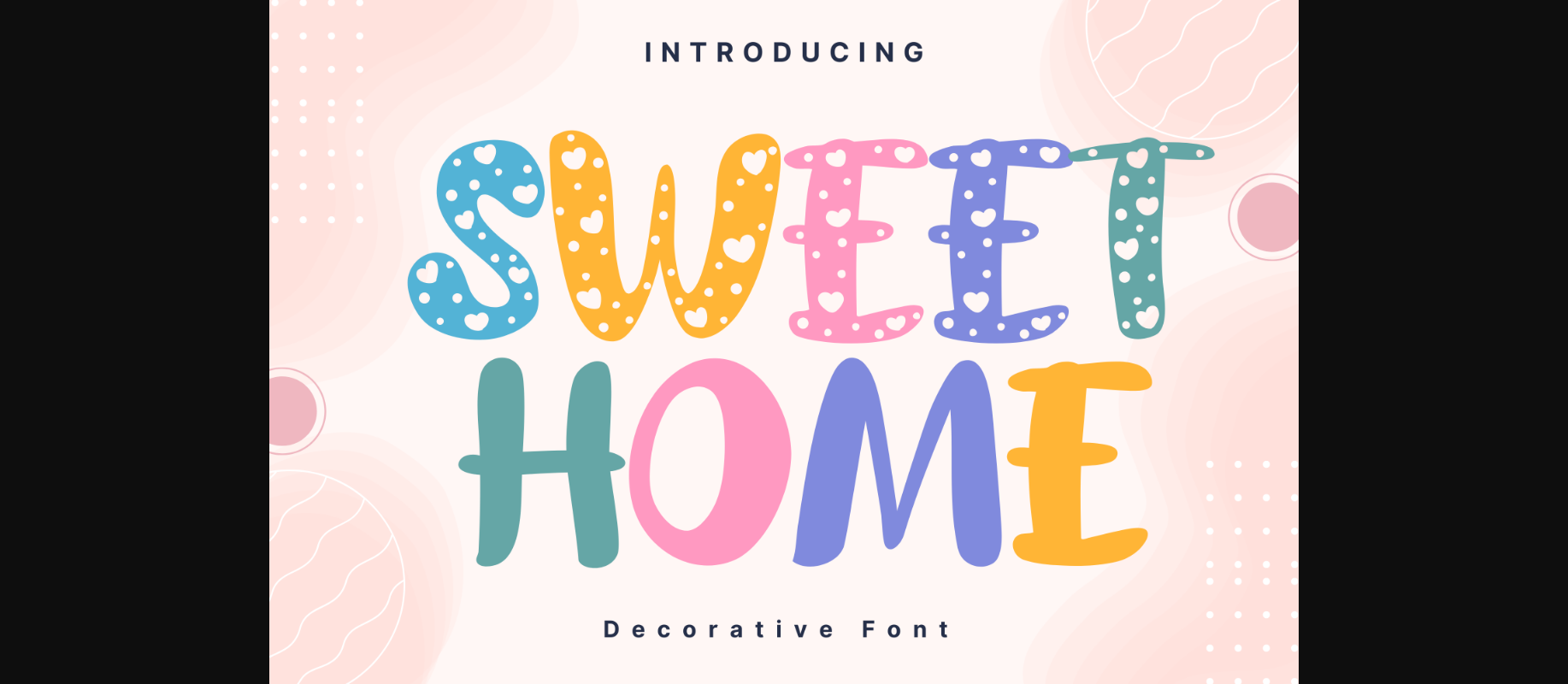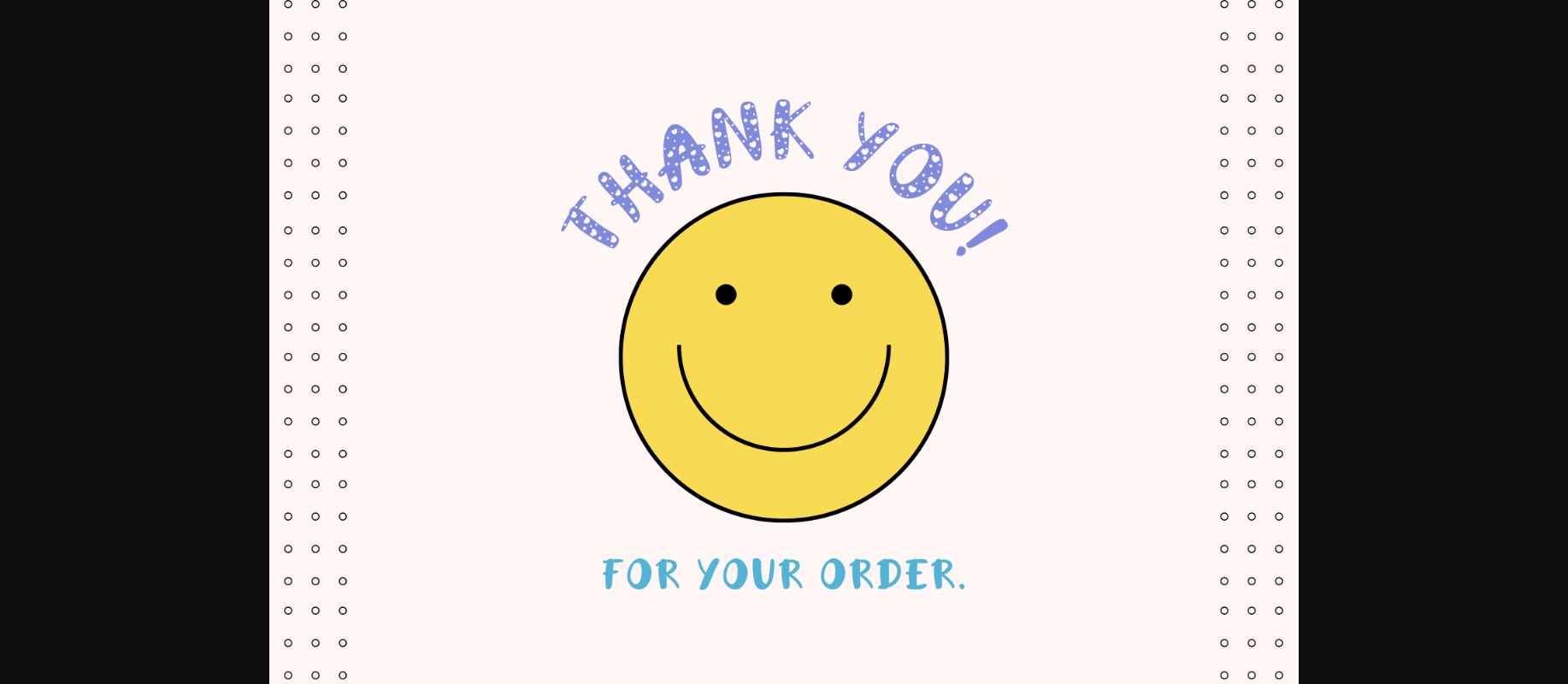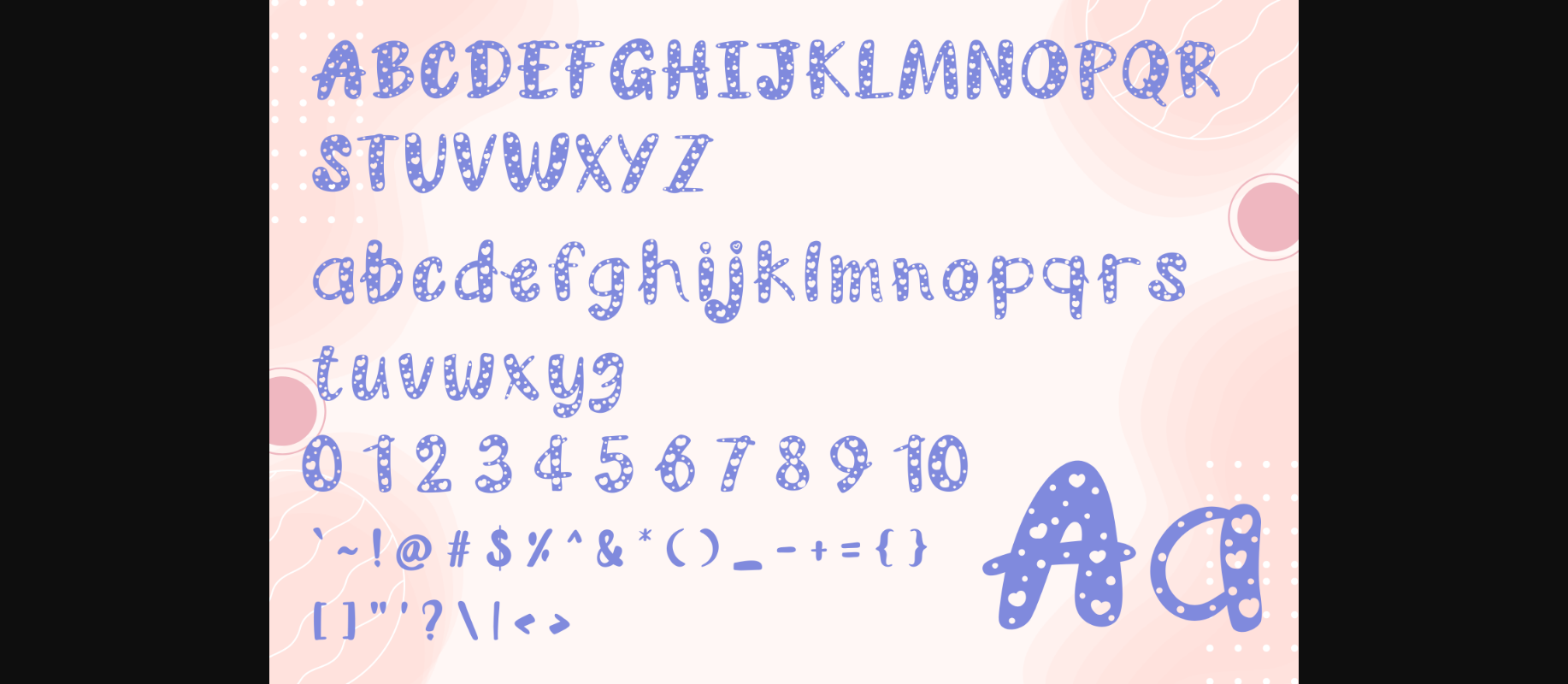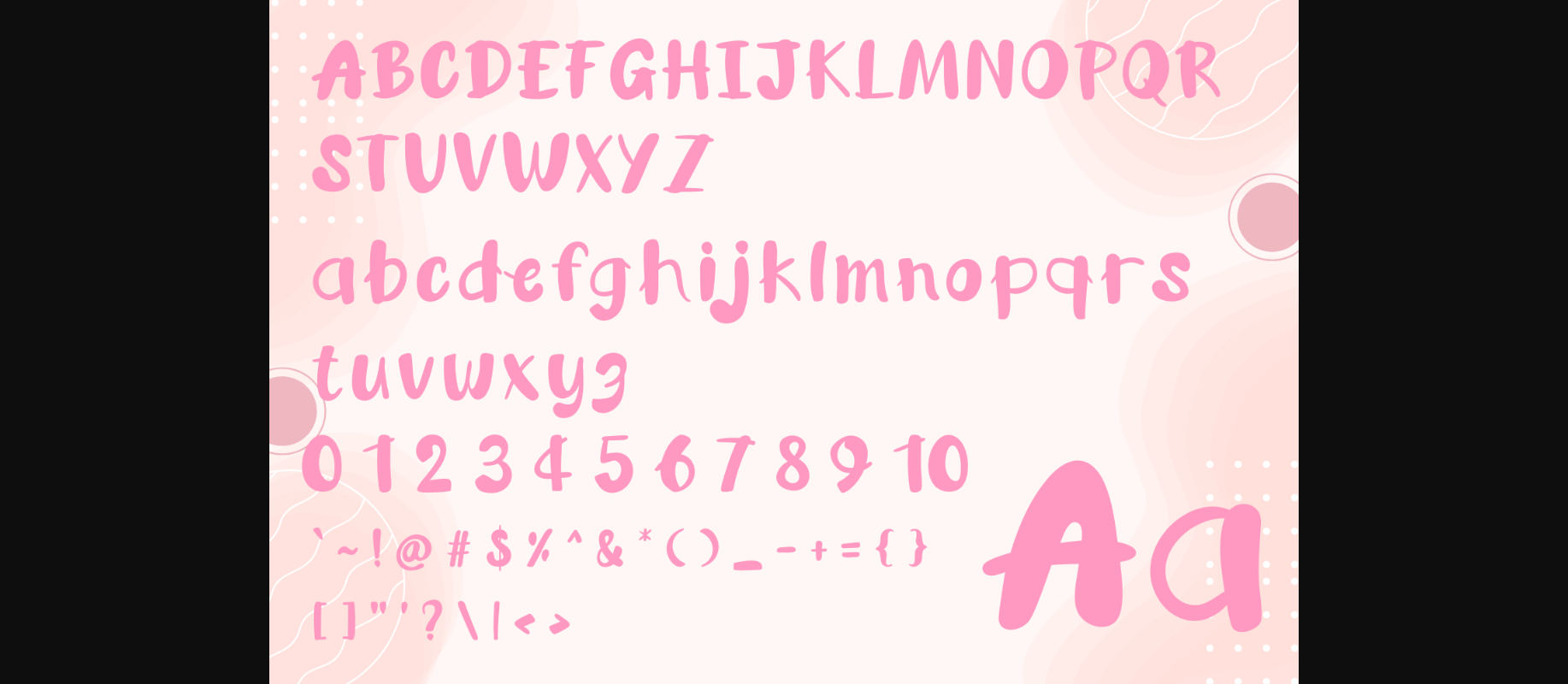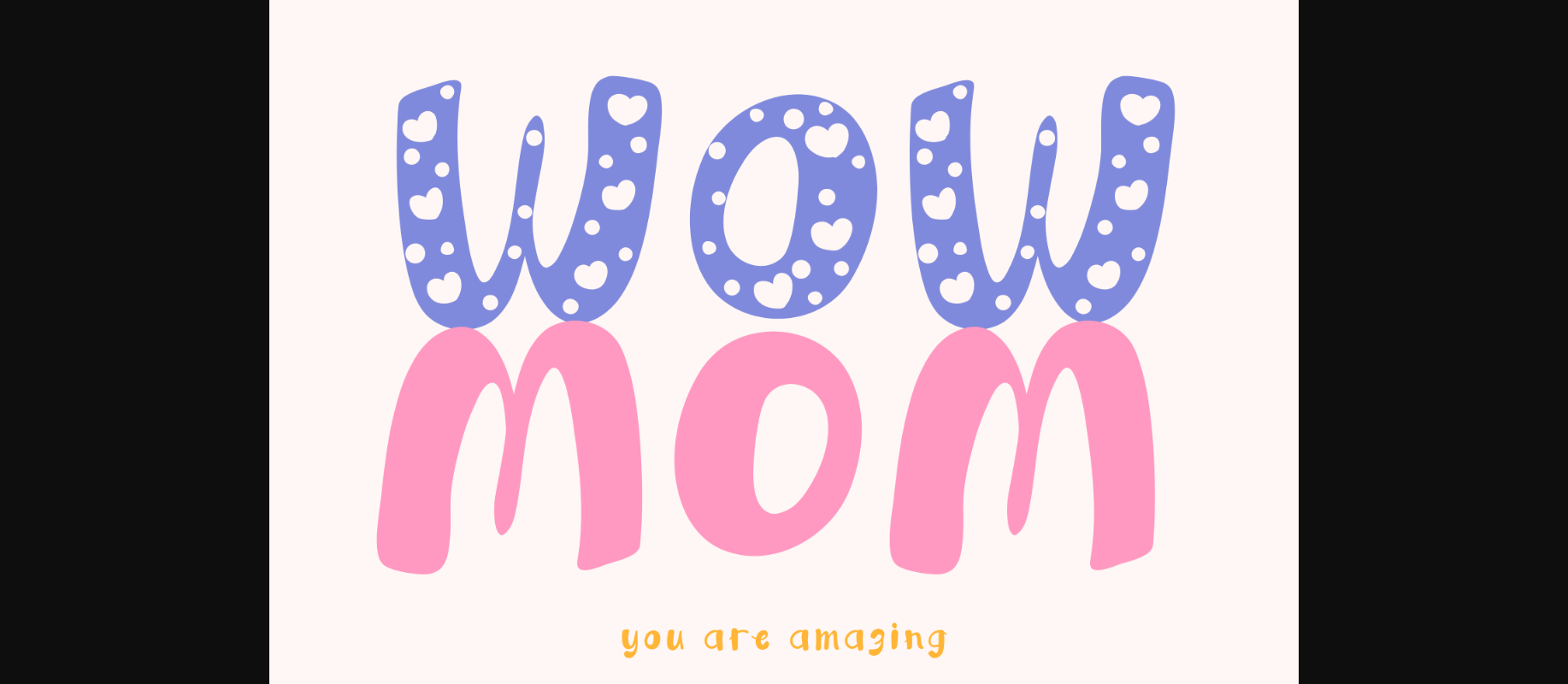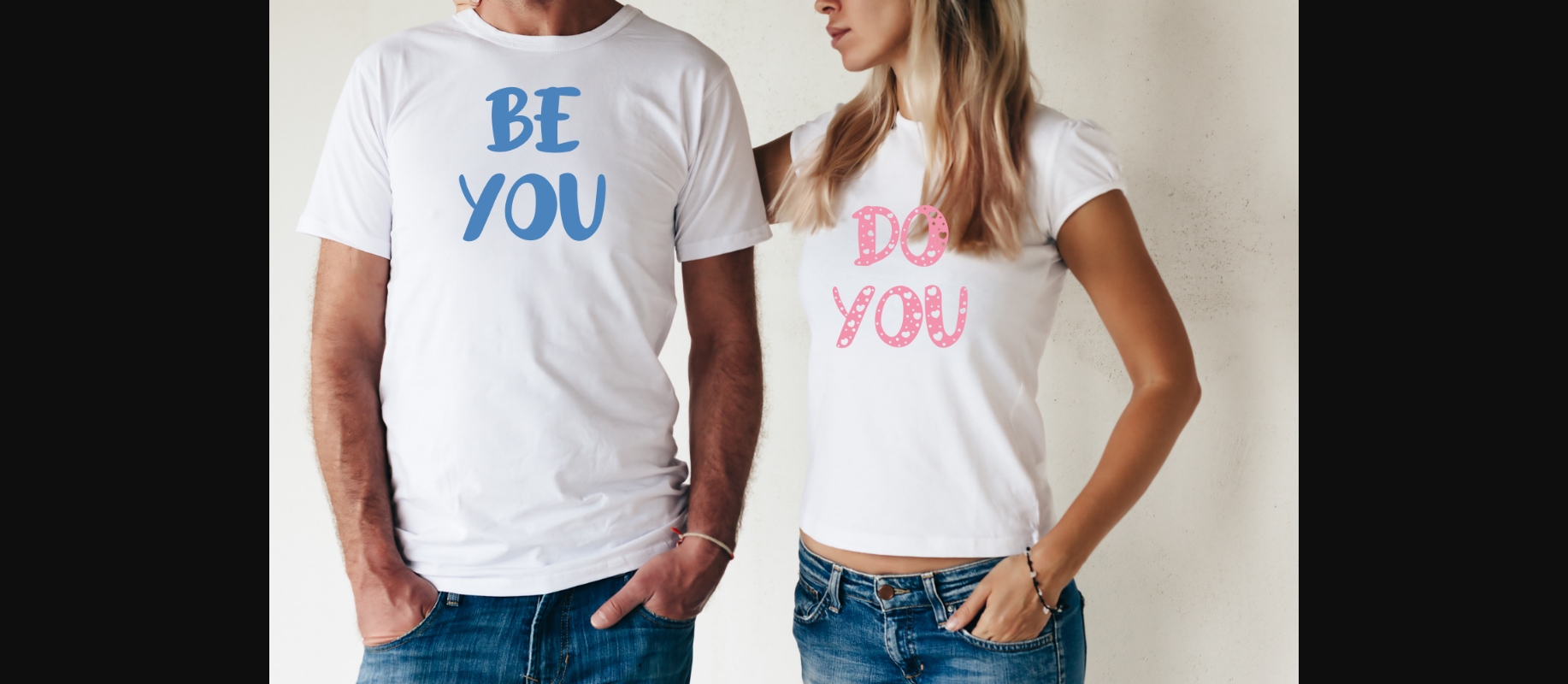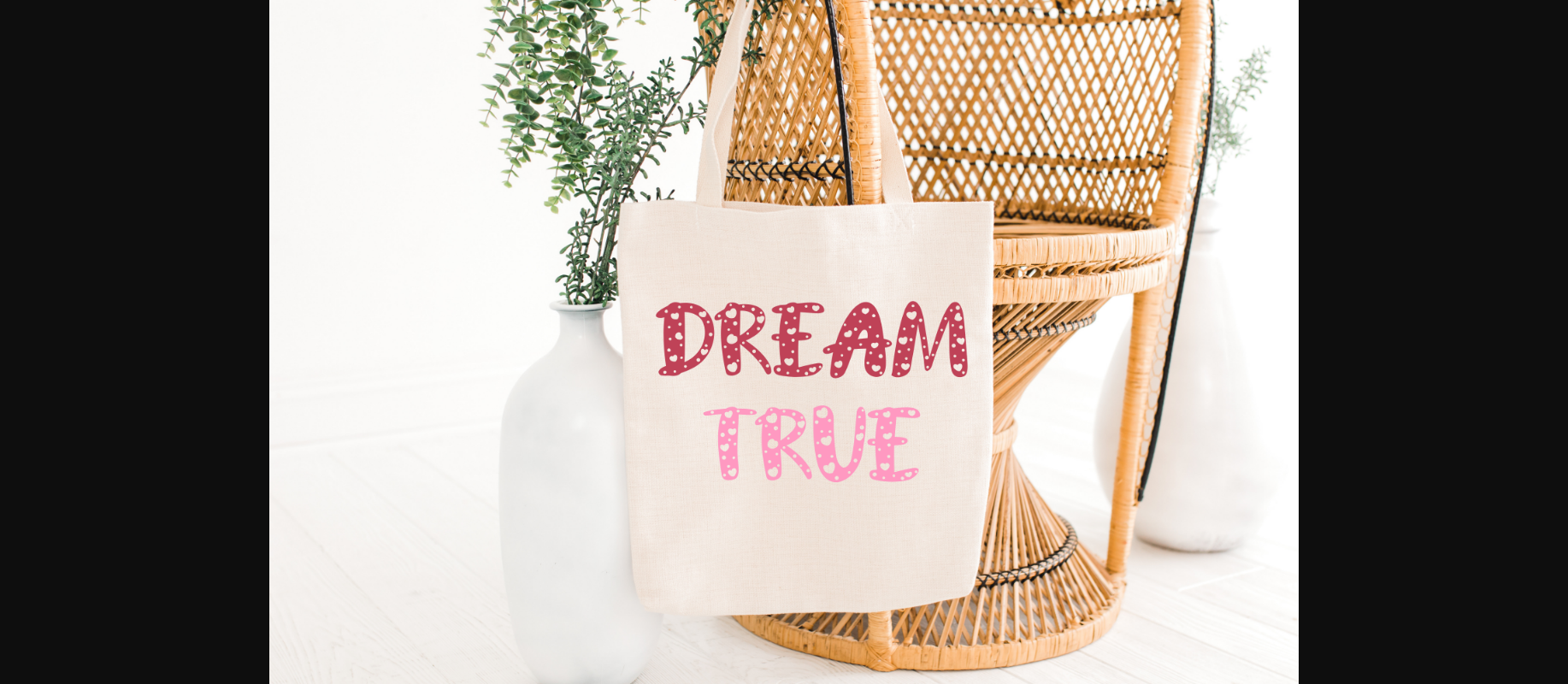
Sweet Home Font
About Sweet Home Font
Sweet Home Style is a whimsical and clean handwritten font. It can easily be matched to an incredibly large set of projects, so add it to your creative ideas and notice how it makes them stand out!